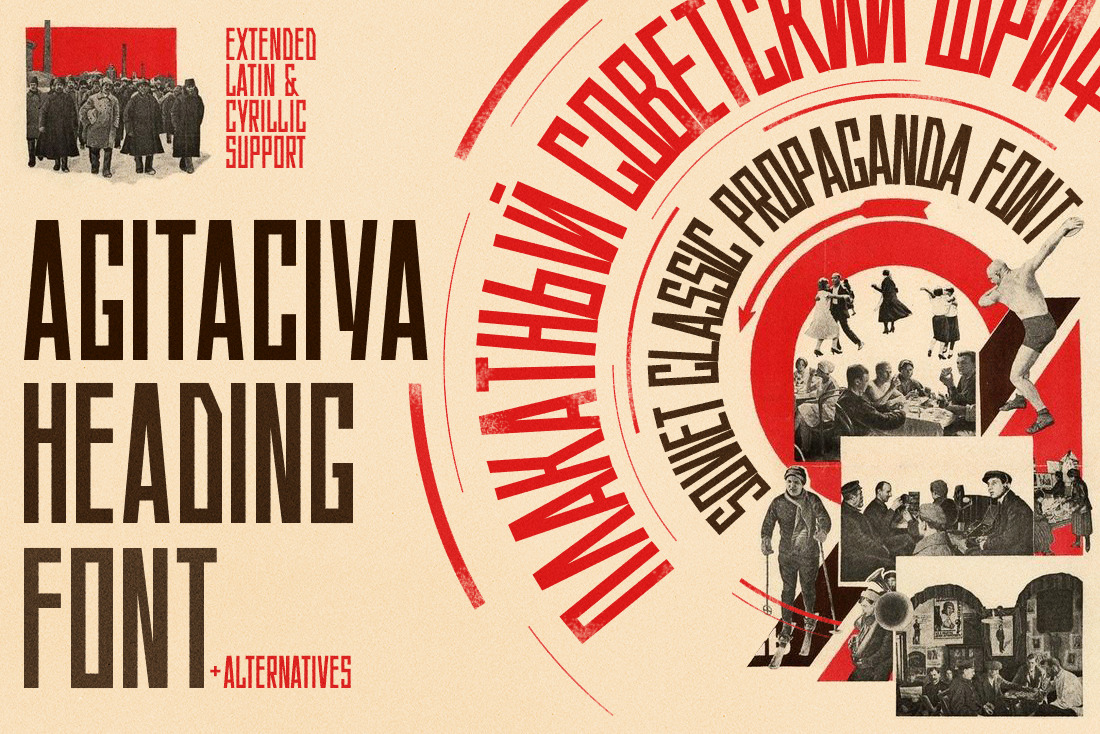
AGITACIYA Soviet propaganda font
Introducing a retro narrow grotesque called "Agitaciya" (Agitation). Bring back to the Soviet Era Agitation inspired by Soviet posters, movie titles and book covers. The letterforms are straight and condensed and come in 2 styles: uppercase and small caps alternatives. It has Extended LATIN and Extended CYRILLIC letters. "Agitaciya"created for titles, poster design, web design, branding and packaging works, illustrations, badges and other typography works.